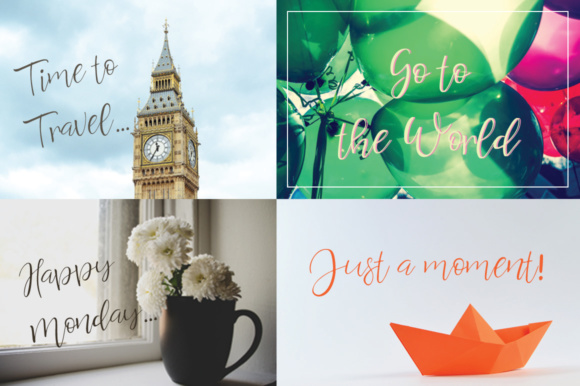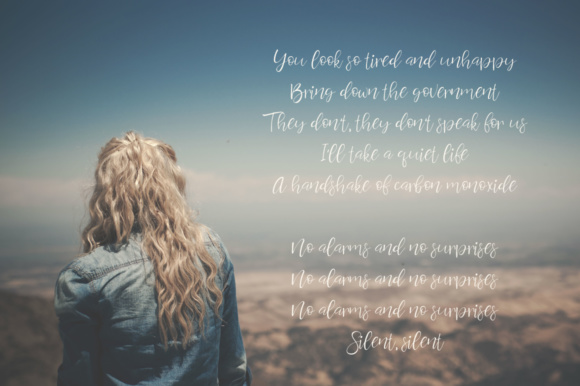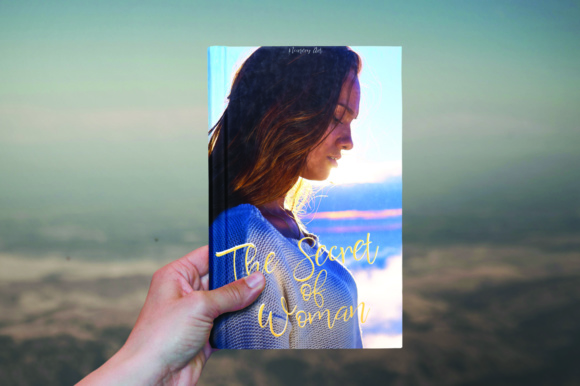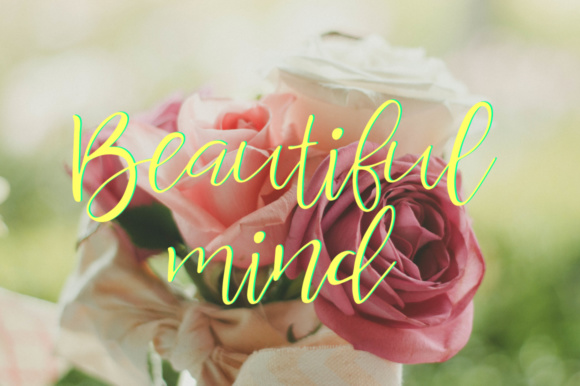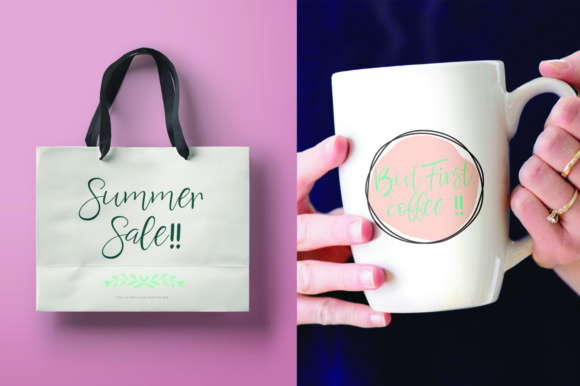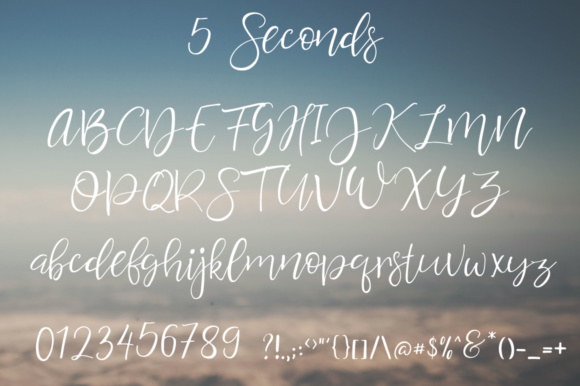
5 Seconds Font
About 5 Seconds Font
The 5 Seconds is a beautiful handwriting font. It’s perfect for wedding invitations, blogs, beautiful frames for your home, small business, book covers, stationery and more.